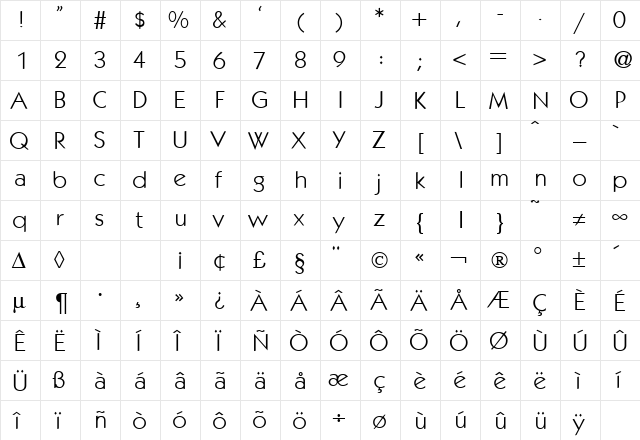
KochModern DB Regular
Design Context for KochModern DB Typeface
KochModern DB is a composed and adaptable typeface that performs quietly and consistently across a wide range of design contexts.